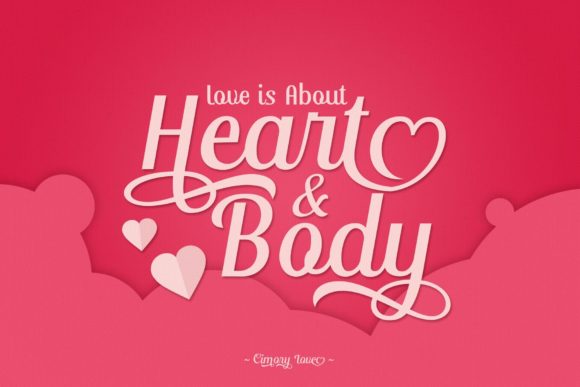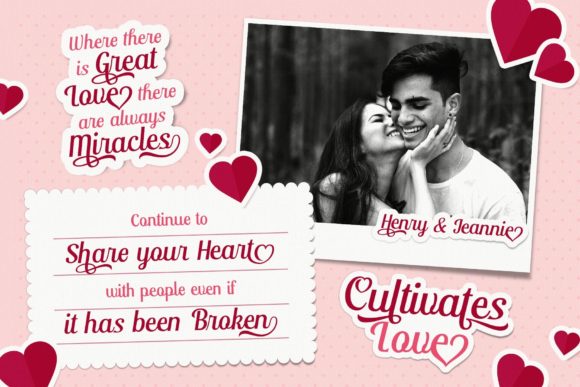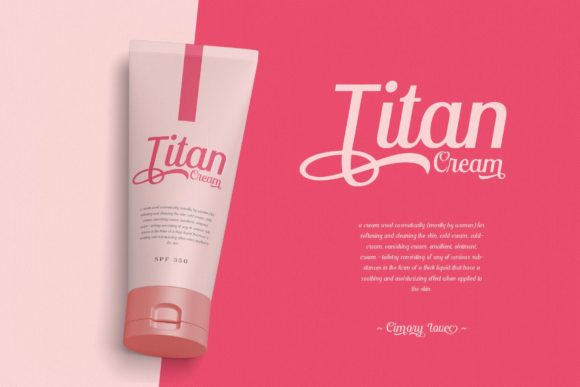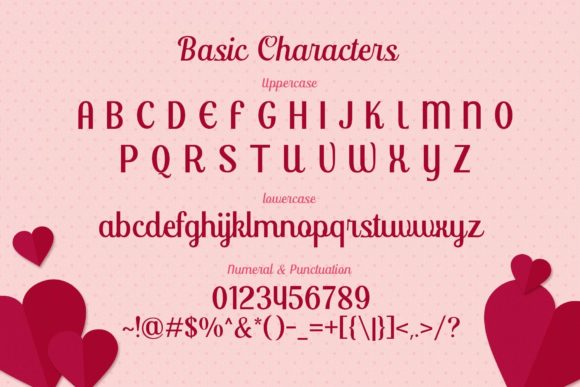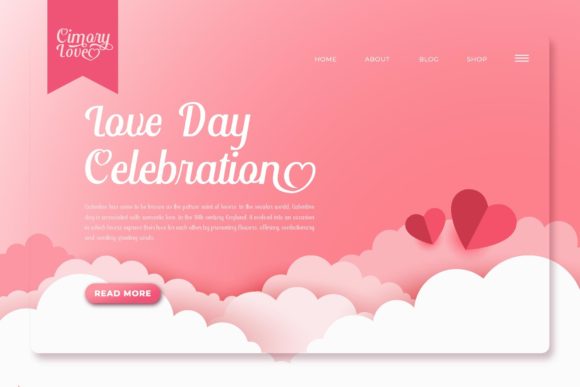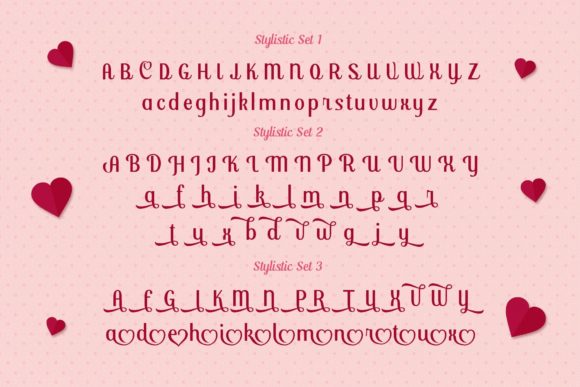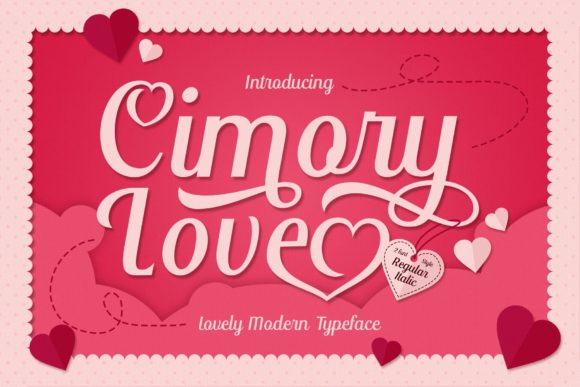
Cimory Love Font: The Perfect Choice for Romantic Designs
Are you looking for a beautiful and unique font to make your Valentine’s Day designs stand out? Look no further than Cimory Love Font! This stunning script font is inspired by the spirit of love and romance, making it perfect for creating unique and eye-catching designs. In this article, we’ll explore the features and benefits of Cimory Love Font and show you how to make the most of this gorgeous font.
What is Cimory Love Font?
Cimory Love Font is a beautiful script font that is specifically designed to capture the essence of Valentine’s Day. Its interesting characteristics make it perfect for creating romantic designs that will leave a lasting impression. Whether you’re a designer, crafter, or DIY enthusiast, Cimory Love Font is a must-have in your font collection.
Features of Cimory Love Font
Cimory Love Font comes with a range of features that make it perfect for romantic designs. Some of its key features include:
- PUA Encoding: Cimory Love Font is PUA encoded, which means you can access all of the glyphs and swashes with ease. This makes it easy to create beautiful and intricate designs.
- Script Font: Cimory Love Font is a script font that is designed to mimic the look and feel of handwritten text. Its flowing lines and curves make it perfect for creating romantic and elegant designs.
- Unique Characteristics: Cimory Love Font has a range of unique characteristics that make it stand out from other fonts. Its intricate lines, swashes, and glyphs make it perfect for creating one-of-a-kind designs.
Uses of Cimory Love Font
Cimory Love Font is a versatile font that can be used for a wide range of design projects. Here are some ideas to get you started:
- Greeting Card Designs: Create beautiful and romantic greeting cards for Valentine’s Day, anniversaries, and other special occasions.
- Instagram Posts: Use Cimory Love Font to create stunning Instagram posts that will make your followers swoon.
- Logos: Create a beautiful and elegant logo for your business or brand using Cimory Love Font.
- Wedding Invitations and Decorations: Use Cimory Love Font to create stunning wedding invitations, decorations, and other wedding stationery.
- Romantic Quotes: Create beautiful and inspiring romantic quotes using Cimory Love Font.
Tips for Using Cimory Love Font
Here are some tips for using Cimory Love Font to create stunning designs:
- Experiment with Different Sizes and Colors: Cimory Love Font looks great in a range of sizes and colors. Experiment with different combinations to find the one that works best for your design.
- Use Swashes and Glyphs: Cimory Love Font comes with a range of swashes and glyphs that can be used to add interest and elegance to your designs.
- Pair with Other Fonts: Cimory Love Font pairs well with other fonts, so don’t be afraid to experiment with different combinations.